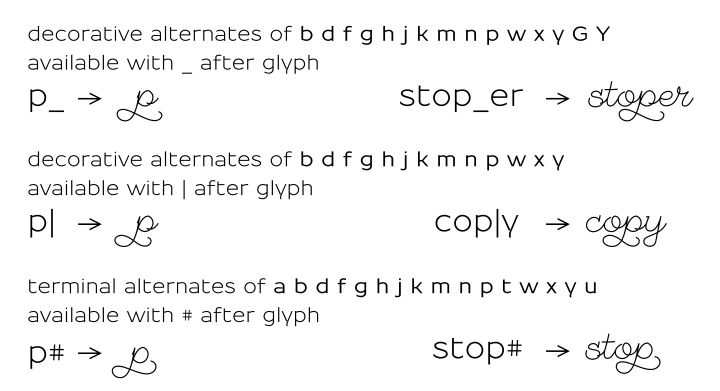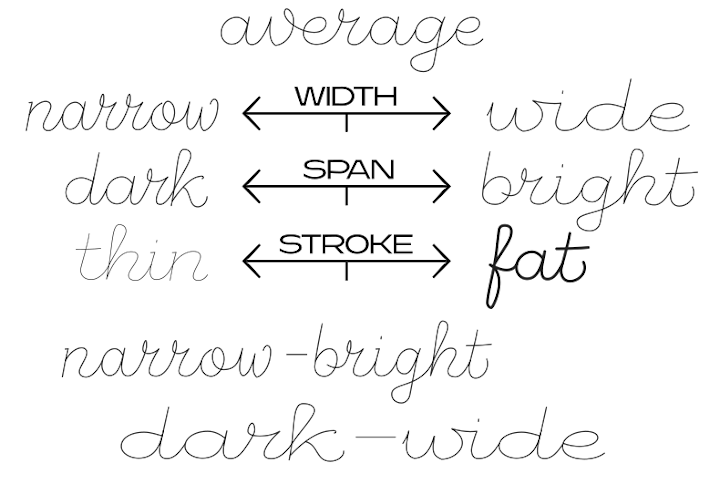
How to use font LimpelkaSL
Vari­able, sin­gle line font LimpelkaSL ava­iable on-​line:
Type­face with styl­is­tic alter­nates of glyphs like g, h, l, p, y… ava­iable with _​and | keys (image with hints in menu tip)
LimpelkaSL - alternate glyphs
Vari­able axes Width & Span (& stroke for pre­view) to adjust the inscrip­tion to the engrav­ing size (menu Vari­ables)
LimpelkaSL - variable axes
Adi­tional auto-​magical con­tex­tual and ter­mi­nal alter­nates – bel­low some examples:
LimpelkaSL - contextual alternates